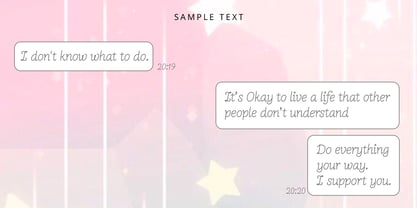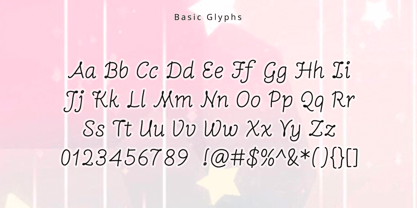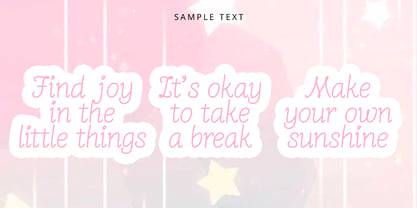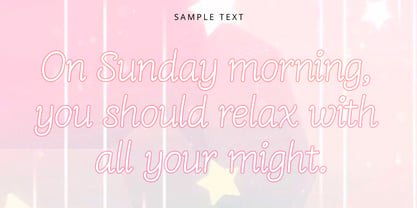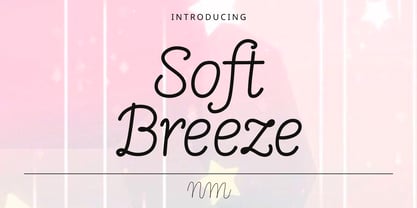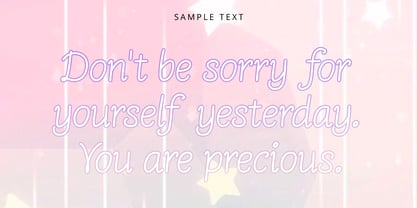
Nm SoftBreeze
by NM Fonts
The Nm SoftBreeze Font Family was designed by Minji Noh and published by NM Fonts. Nm SoftBreeze contains 1 styles. More about this family
Nm SoftBreeze is a soft and charming handwritten font that brings the warmth of natural handwriting into the digital world. Its smooth curves and gentle rhythm create a cozy, friendly feel that's perfect for everyday use.
With its warm and natural appearance, Nm SoftBreeze is suitable for both creative and practical projects. It also looks great in print, allowing you to enjoy its handwritten charm across a variety of everyday designs.
Designers: Minji Noh
Foundry: NM Fonts